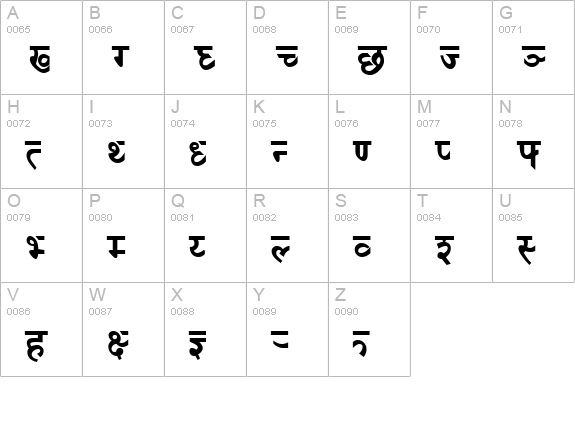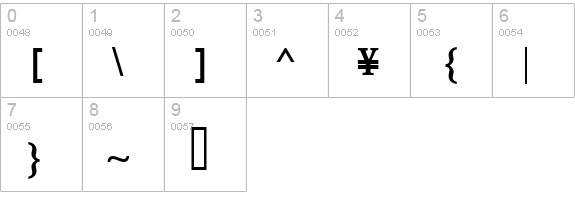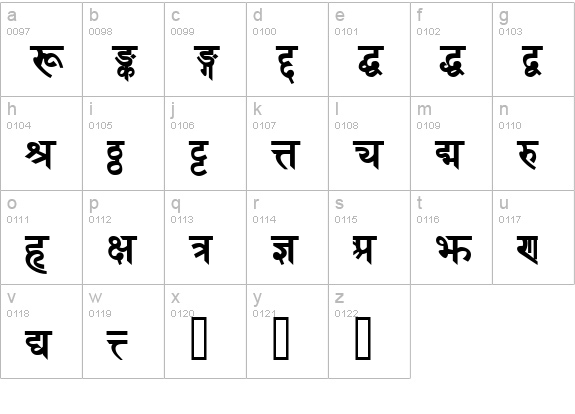
DevanagariDelhiSSK Bold Font Details
DevanagariDelhiSSK Bold is a strong, high-contrast variant in the DevanagariDelhiSSK typeface family \xE2\x80\x94 well suited to headlines, attention-grabbing titles, and strong calls-to-action.
DevanagariDelhiSSK Bold is an eye-catching and stylish font that exudes confidence and elegance. With its bold and distinctive design, this font is perfect for making a statement in various design projects. Whether you are creating posters, banners, or logos, DevanagariDelhiSSK Bold will add a touch of sophistication to your work. The font features beautiful Devanagari characters that are intricately designed with a modern twist. The bold weight of the font gives it a strong presence, making it ideal for headlines and titles that need to stand out. DevanagariDelhiSSK Bold strikes the perfect balance between traditional elegance and contemporary flair, making it a versatile choice for both print and digital designs. Best of all, DevanagariDelhiSSK Bold is available for free download at FontsMarket.com. So, you can easily access this stunning font and incorporate it into your projects without any cost. Don't miss out on this opportunity to enhance your designs with the timeless beauty of DevanagariDelhiSSK Bold. Download it now and let your creativity shine!